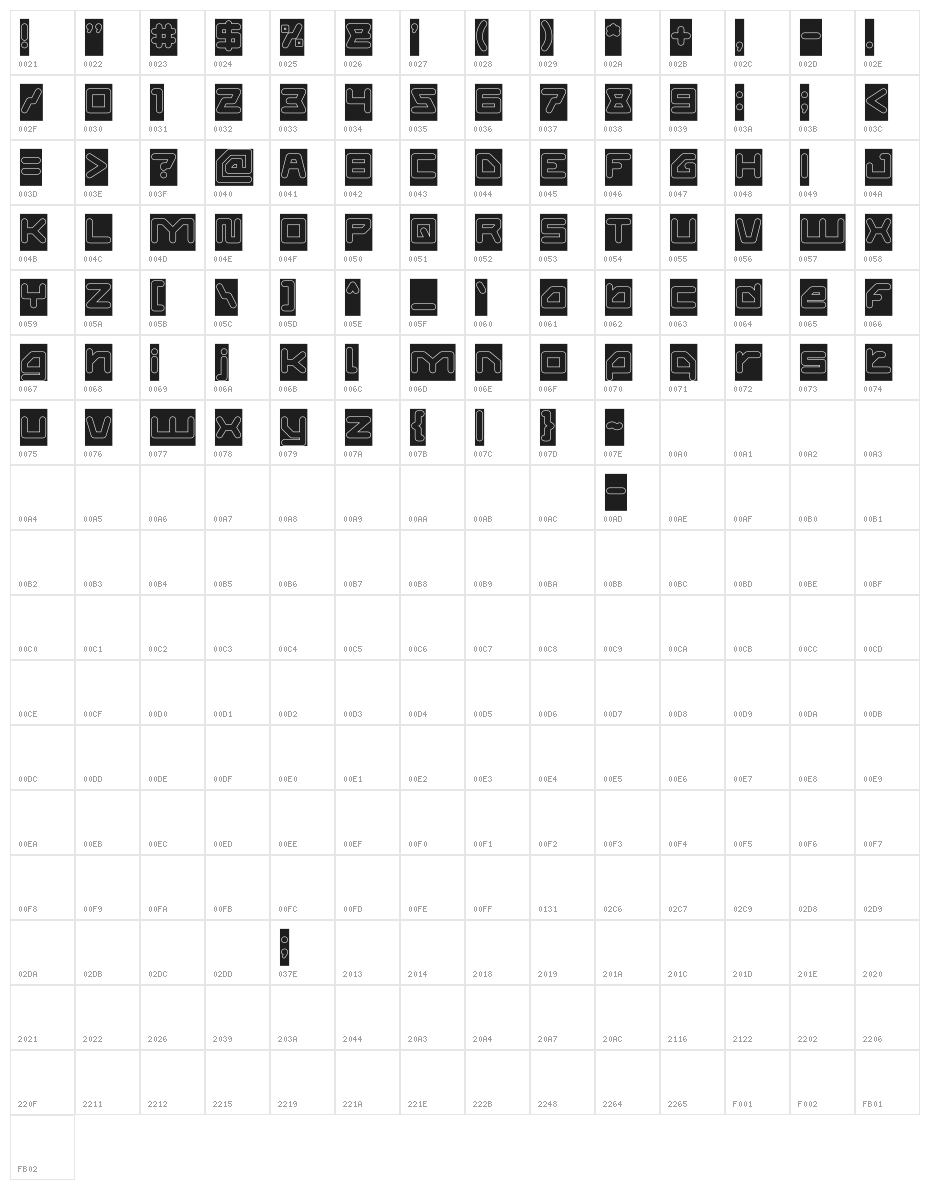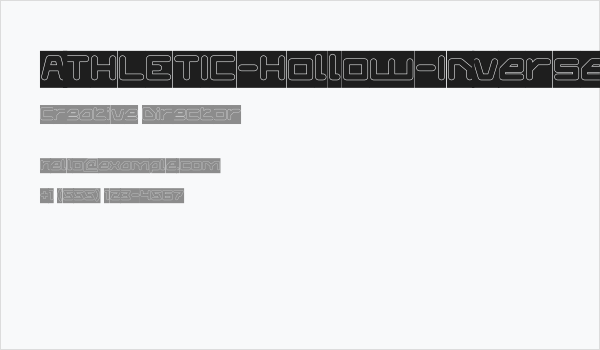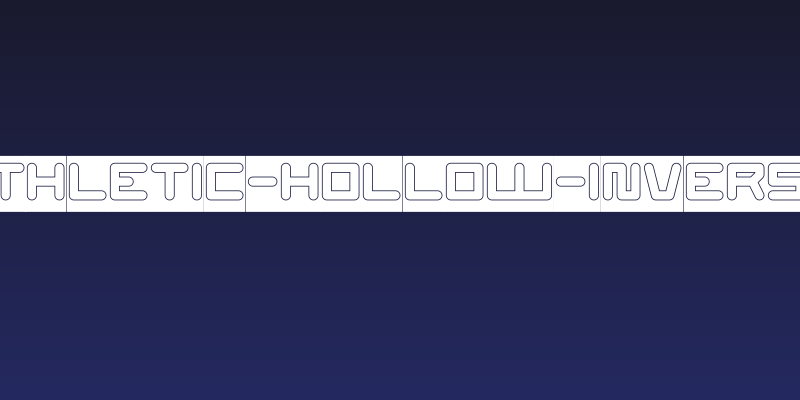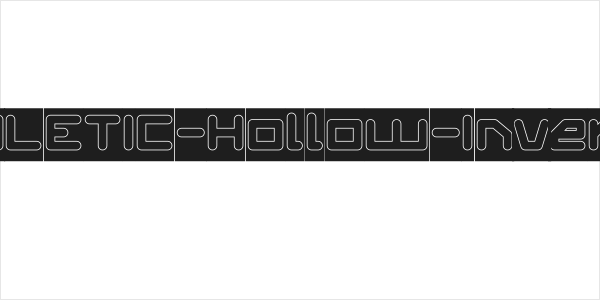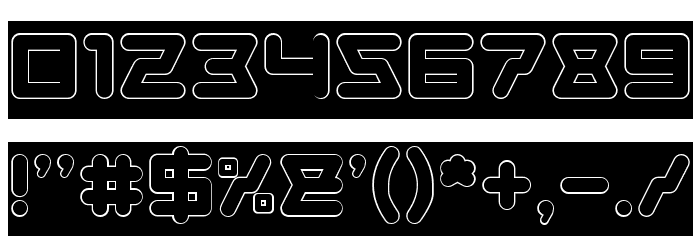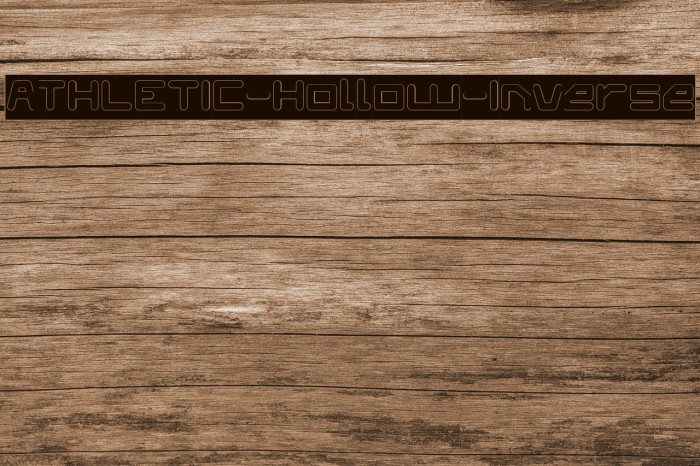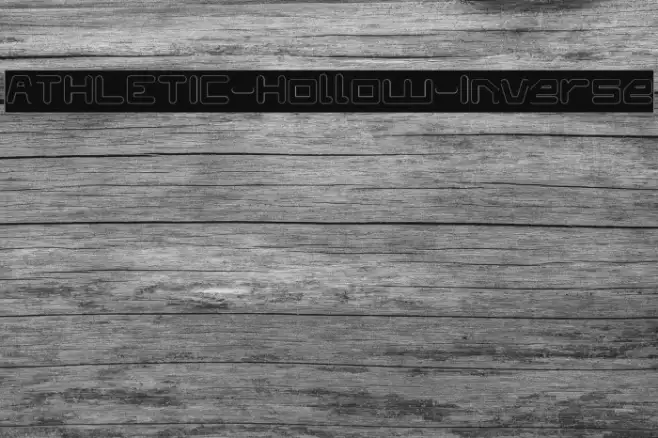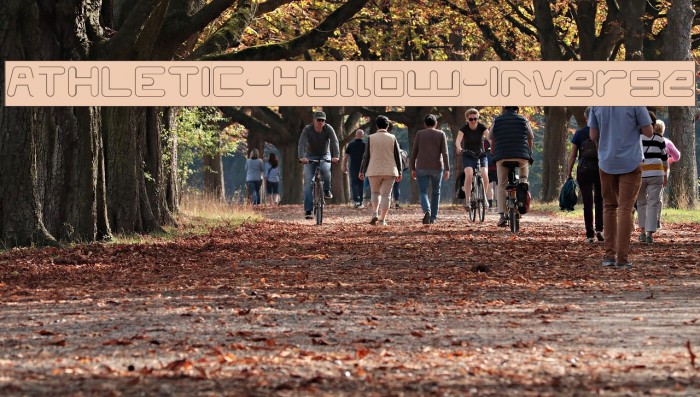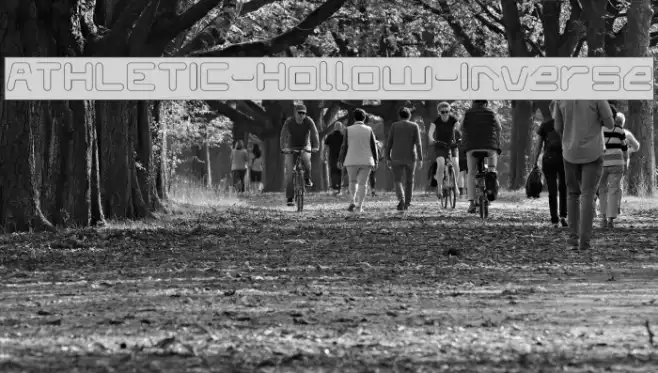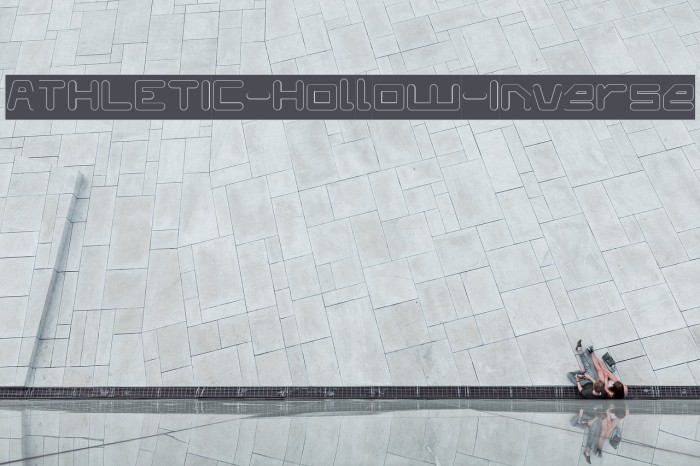
ATHLETIC-Hollow-Inverse Font
ATHLETIC-Hollow-Inverse Description
This font features a bold, hollow design with a futuristic and sporty aesthetic. The characters are outlined, creating a striking visual effect that stands out against any background. The uppercase and lowercase letters maintain a consistent style, with geometric shapes and clean lines. Numbers and special characters follow the same design principles, ensuring uniformity across all text elements. The font's hollow nature gives it a unique, airy feel while maintaining a strong presence, making it ideal for eye-catching designs.
| Proposed Projects | Ideal for sports branding, futuristic designs, posters, and digital media that require a bold and modern look. |